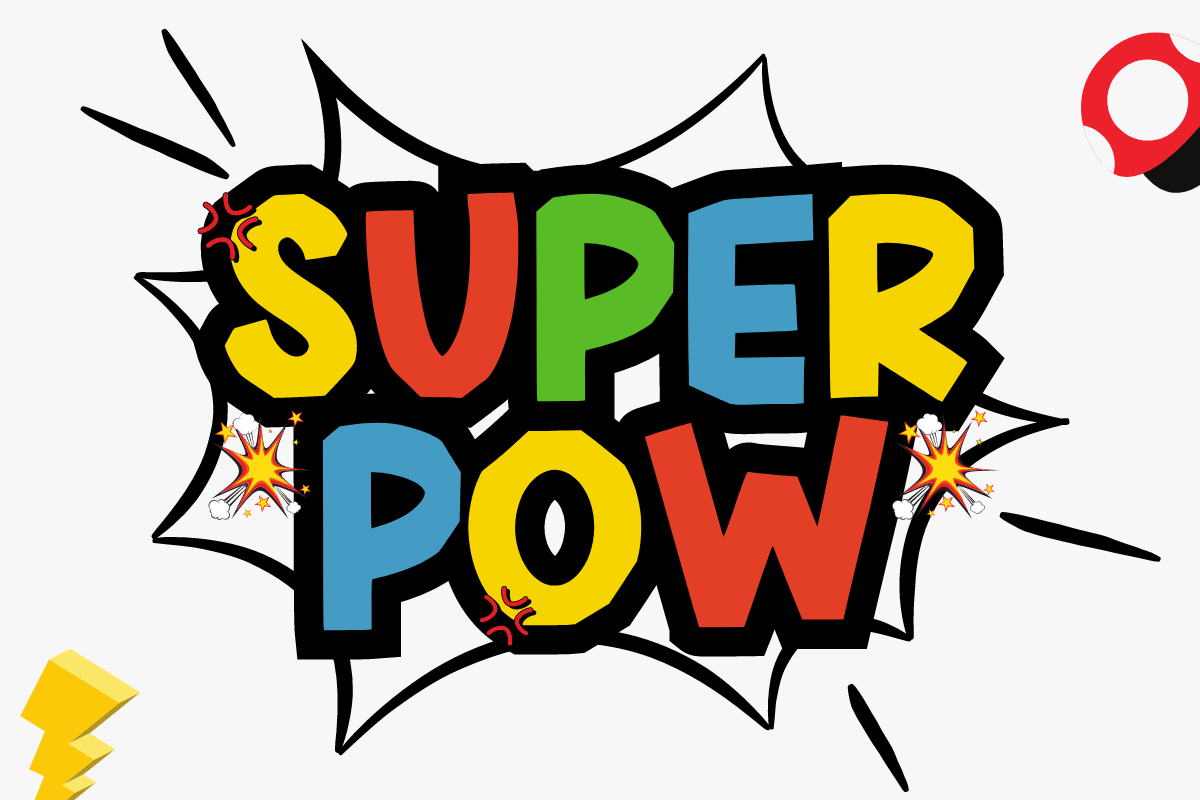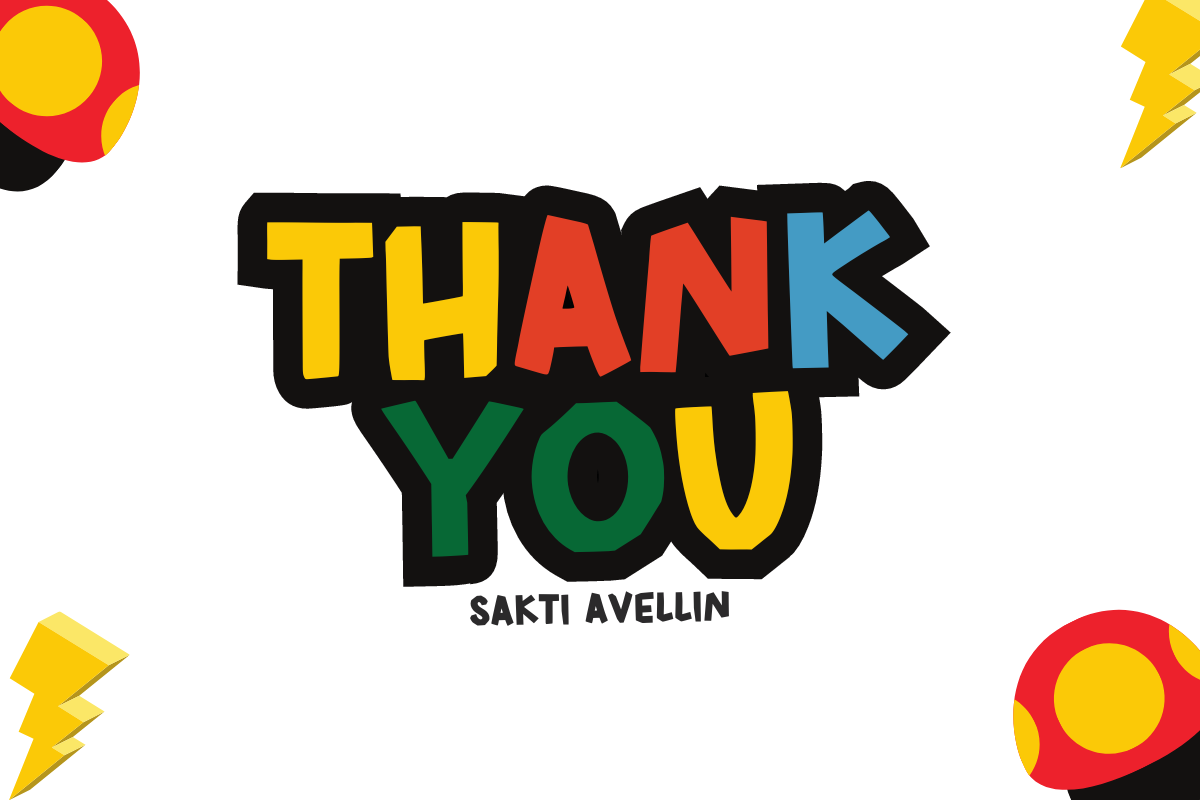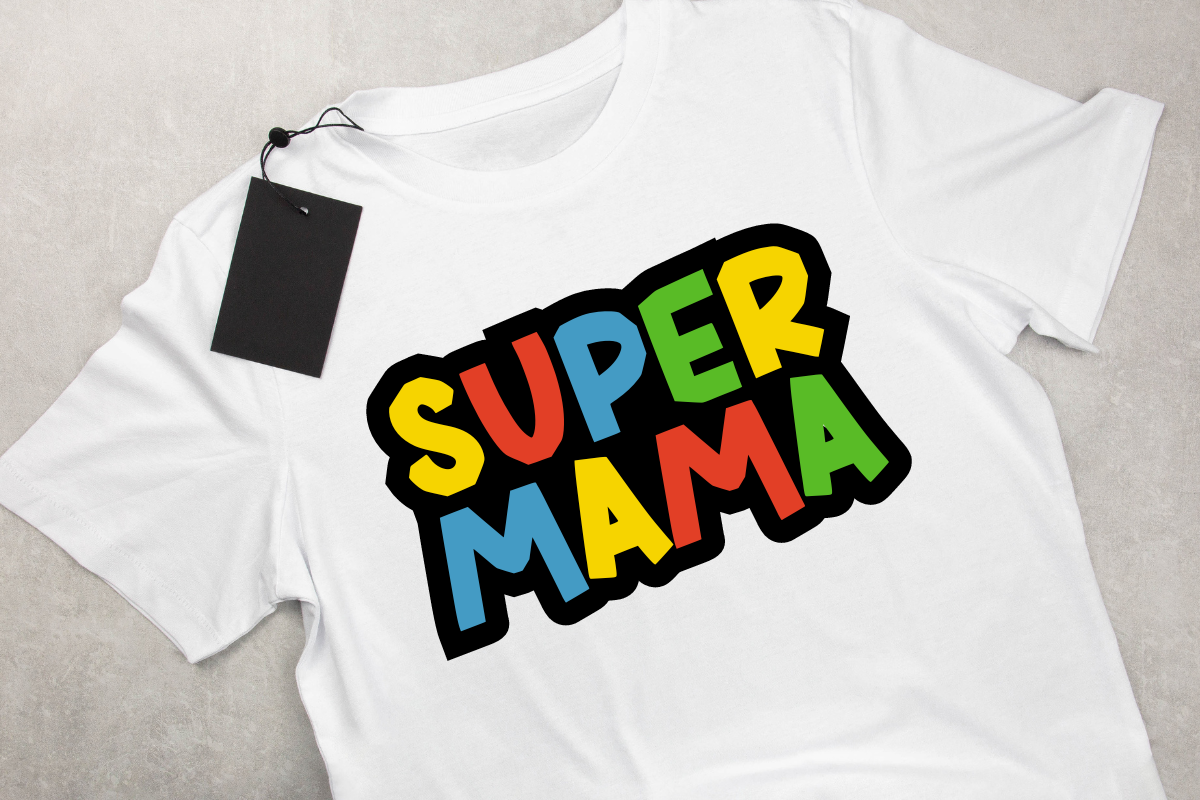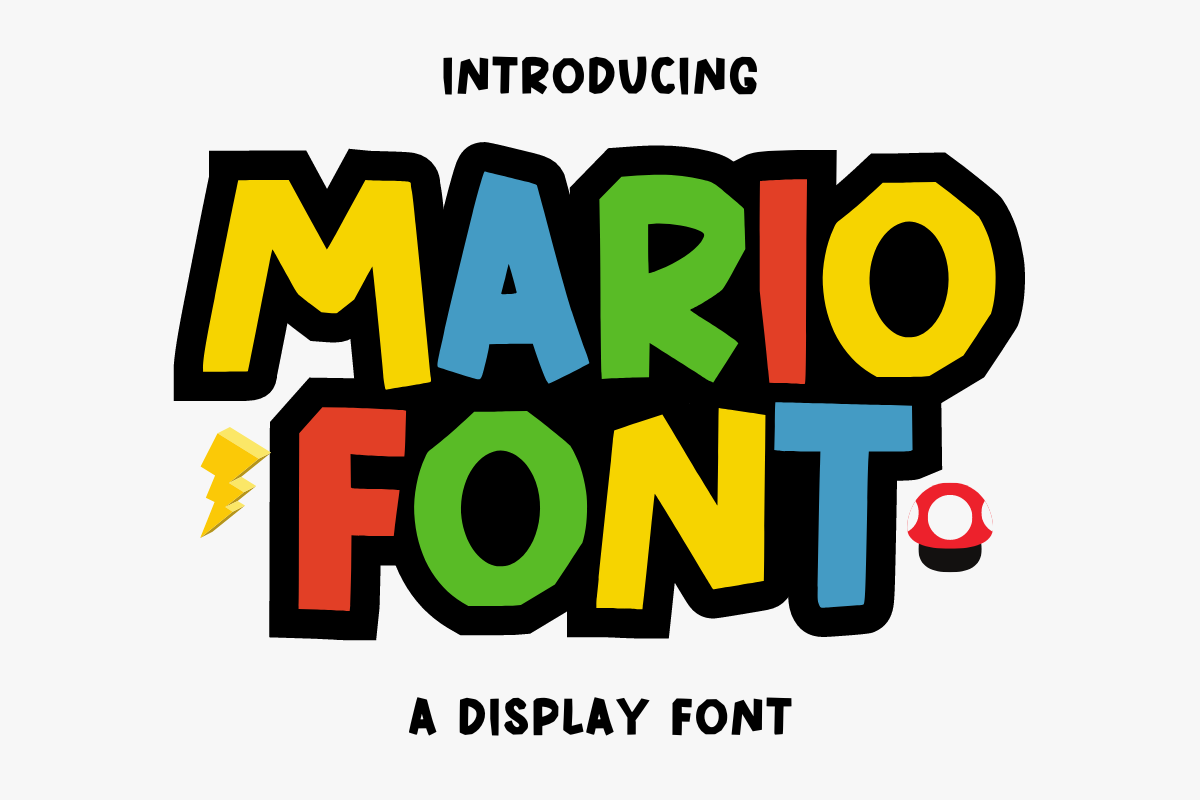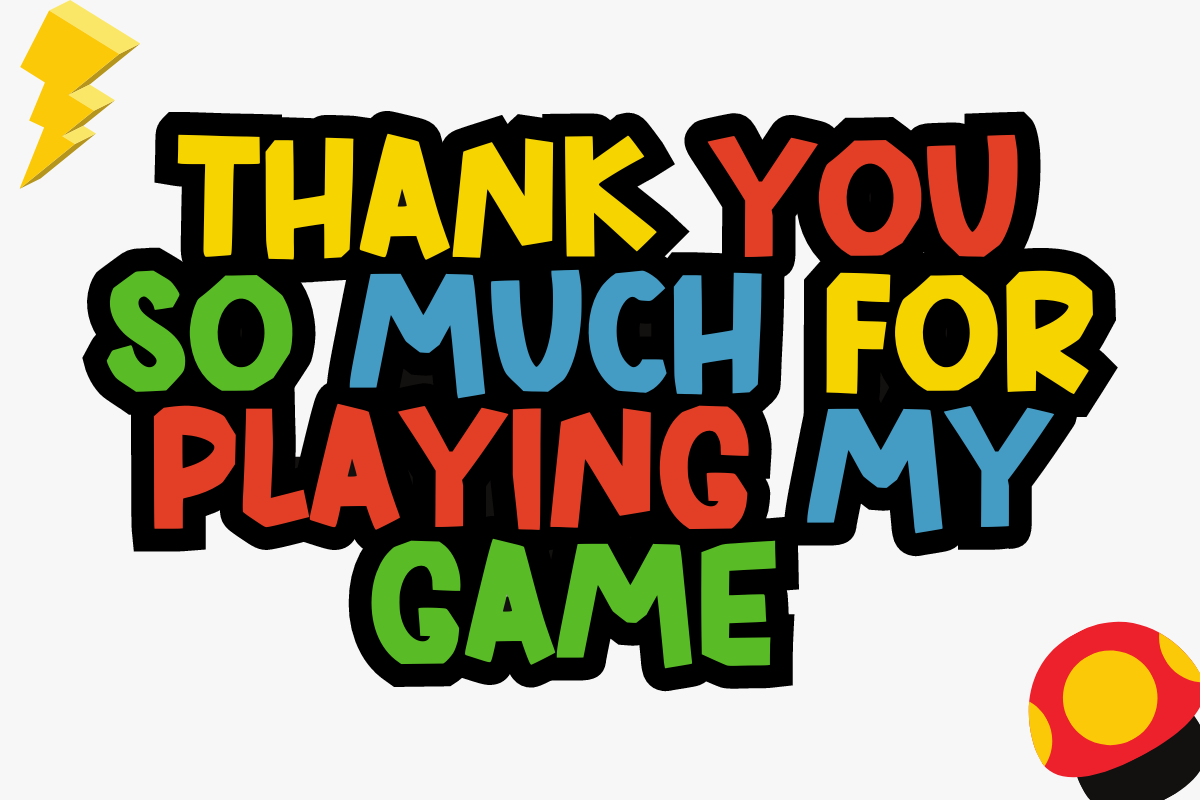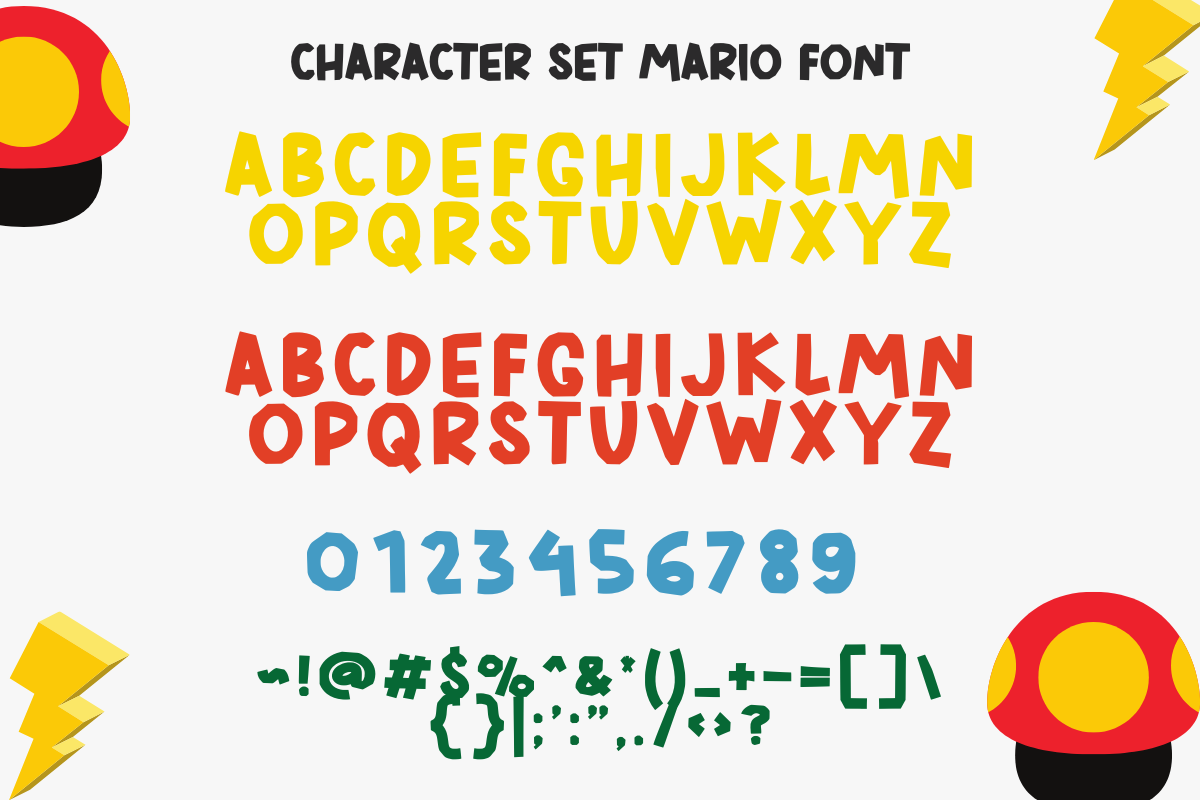
Mario Font
Immerse yourself in the vibrant, dynamic charm of "Mario," a robust and spirited display font that exemplifies playful creativity and bountiful energy. Ideal for injecting an element of joy into your beloved projects, Mario's stout characteristics make it an irresistible choice for children's designs, funky t-shirt prints, motivational quotes, and more. Watch with delight as this font enhances your creation's radiance, captivating viewers with its upbeat personality and fun-filled aesthetic. Relish in the astonishing transformations it can induce, lending your masterpieces a flavor of delightful conviviality that's hard to resist. Regardless of context, Mario brings a touch of merriment to the table, amplifying your creations' appeal in a fun and endearing way.